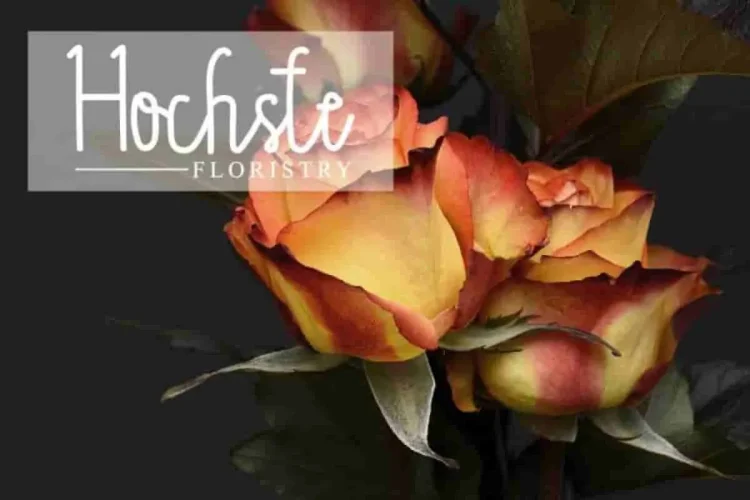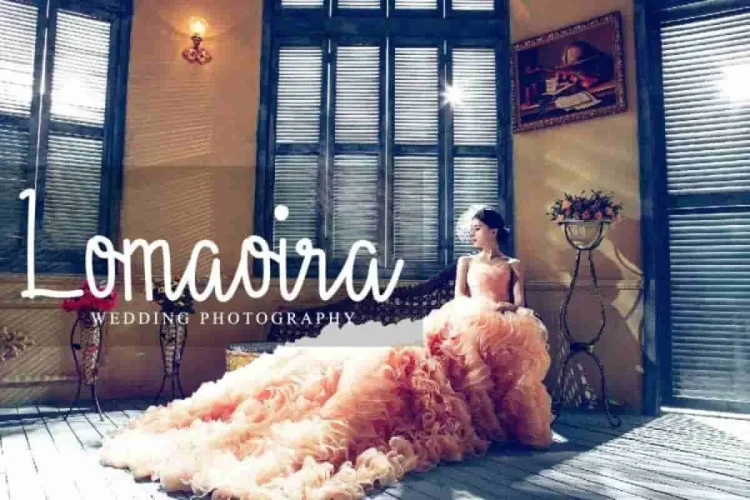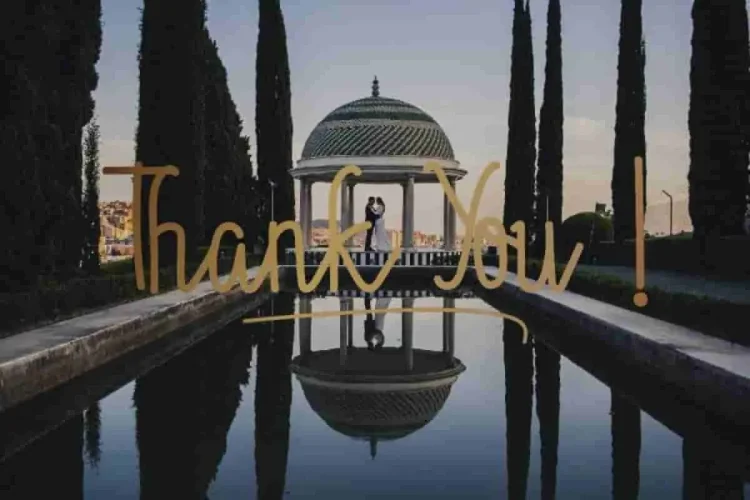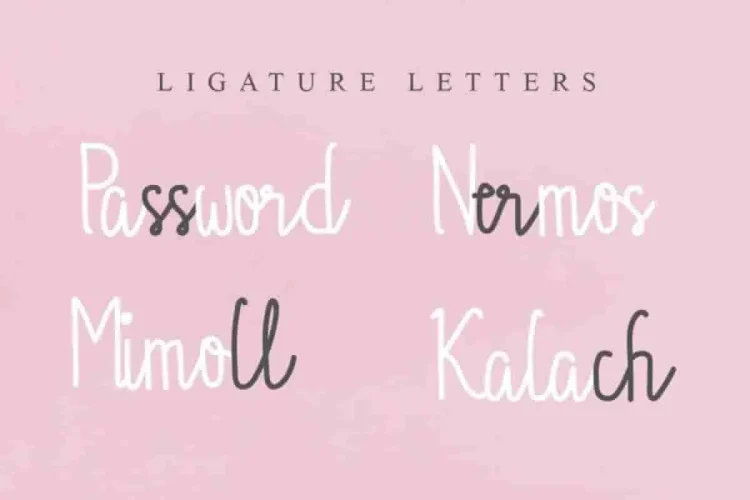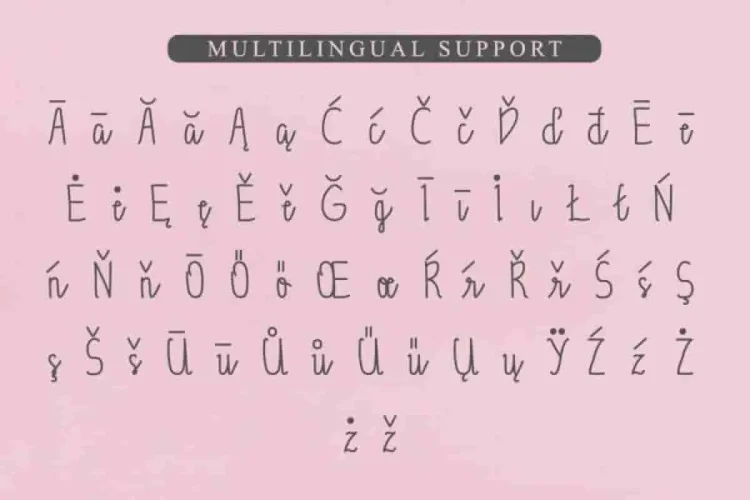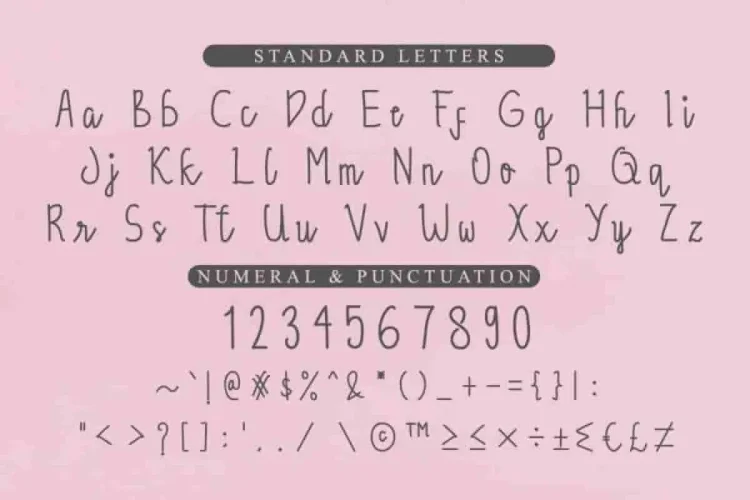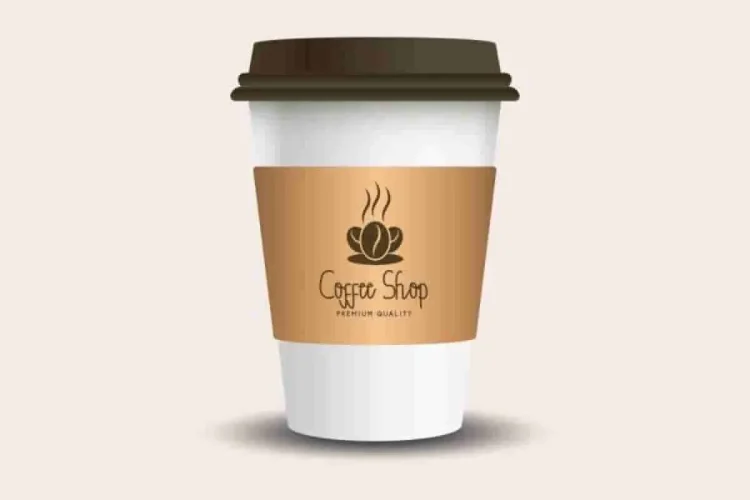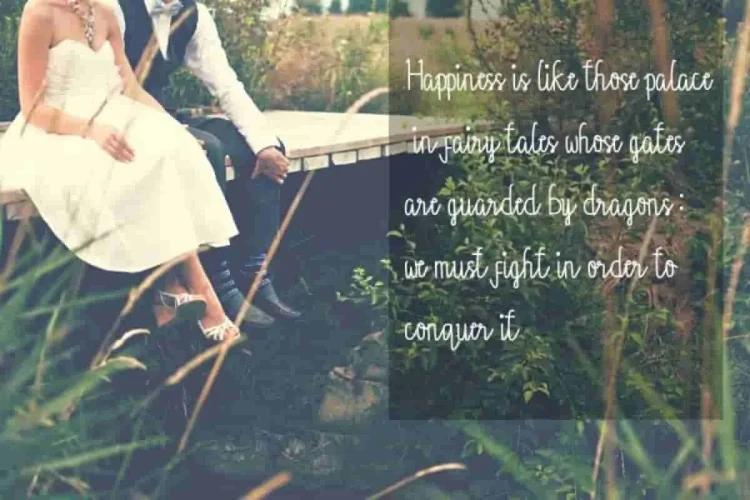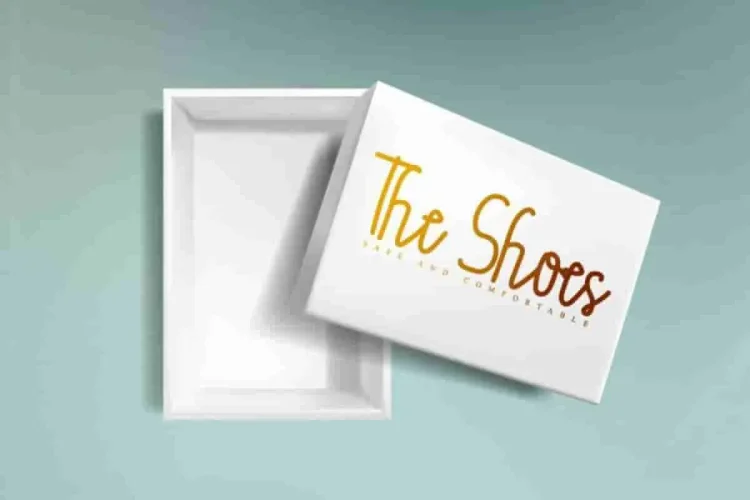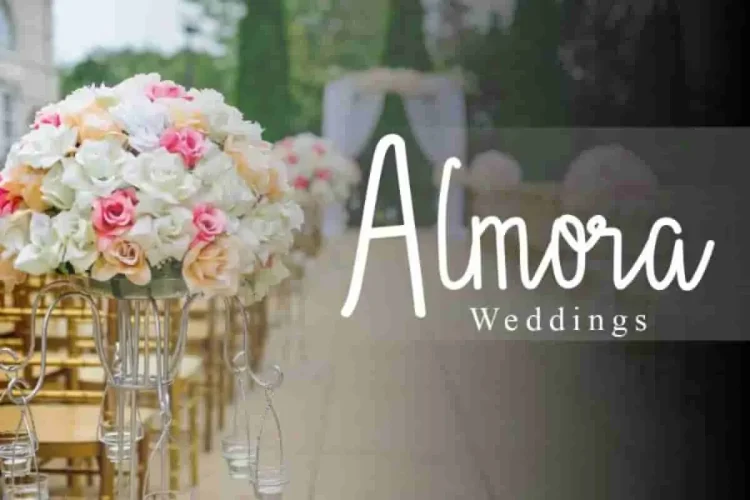
Gemintang Natural Script Font
Please meet Gemintang Script Font. This is a latest script font with natural handwriting look style made with love from our team in Bandung-Indonesia. this font captures the essence of natural pen strokes, giving your designs a warm and personal touch.
What makes Gemintang stand out?
It’s the balance between elegance and authenticity. The letters flow smoothly, with unique ligatures such as in “Password,” “Nermos,” “Mimoll,” and “Kalach” (see sample). These ligatures create a natural connection between characters, making your text look hand-written rather than typed. This is perfect for designs that need a touch of personality.
Gemintang Script Font comes with several licenses you can choose from, depends on your needs. It works beautifully for projects like logo design (with an extended license), flyer, stationery, business card, signage, brochure etc. Moreover, Gemintang Script Font supports international languages, making it perfect for global projects.